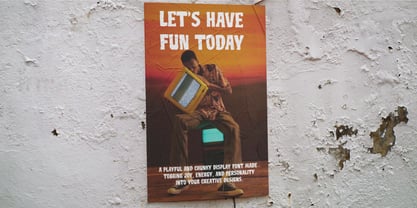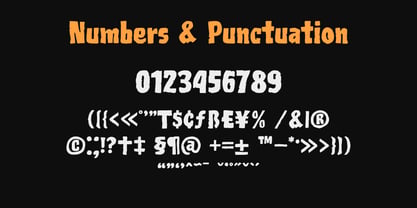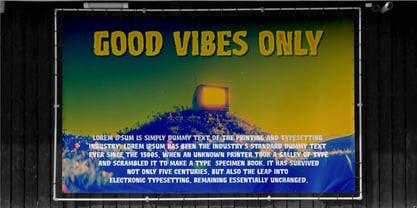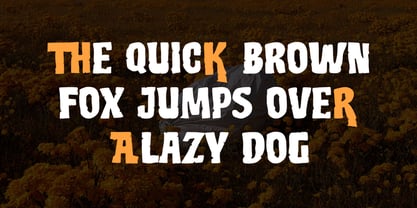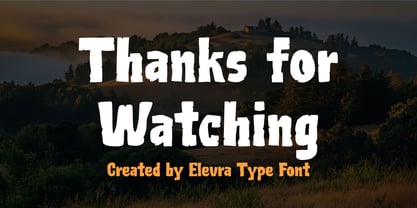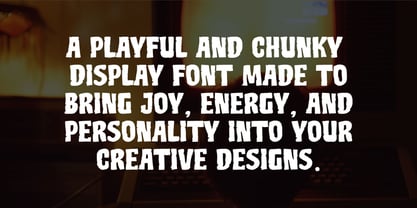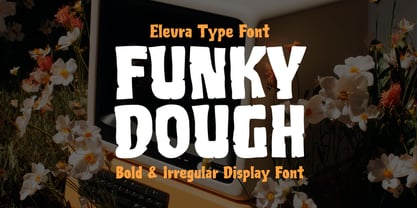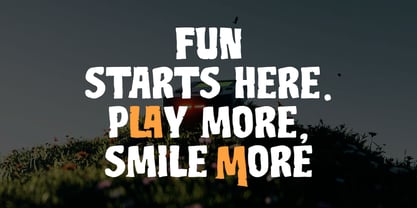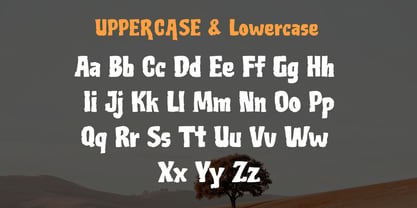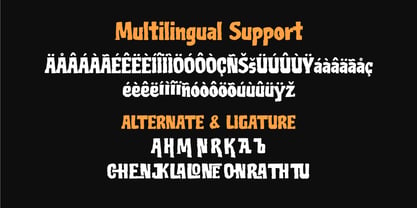
Funky Dough
von Elevra
Die Schriftfamilie Funky Dough wurde von Wirandi Limansyah Zendrato entworfen und von Elevra veröffentlicht. Funky Dough enthält 1 Stile. Mehr über diese Familie
Funky Dough is a bold and irregular display font designed to deliver a playful yet strong visual impact. Featuring chunky letterforms with uneven edges and organic shapes, this font feels hand-crafted, expressive, and full of character. Its imperfect structure gives it a fun, spontaneous personality that stands out from clean and polished typefaces. This font is perfect for creative projects that need a friendly but bold tone. Funky Dough works beautifully for posters, branding, packaging, editorial headlines, social media graphics, merchandise, and eye-catching logos. The thick strokes ensure excellent readability, while the irregular details add charm and uniqueness to every word. Whether you’re designing for modern brands, artistic layouts, or fun promotional visuals, Funky Dough brings warmth, creativity, and a handcrafted feel to your typography. It’s an excellent choice for designers looking for a bold display font with personality and visual energy.
Designer: Wirandi Limansyah Zendrato
Aktuelle Foundry: Elevra